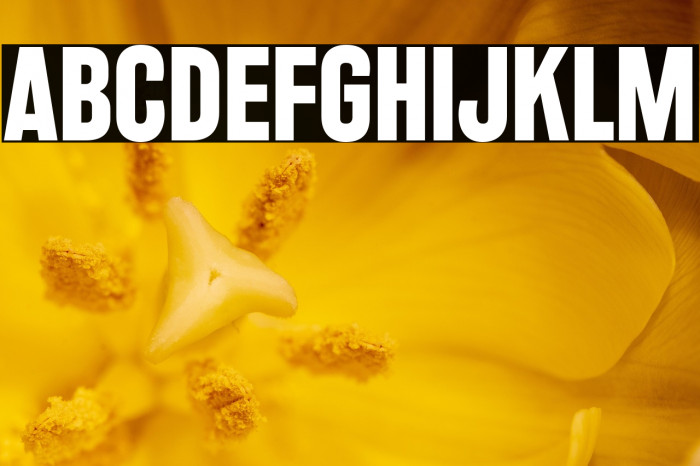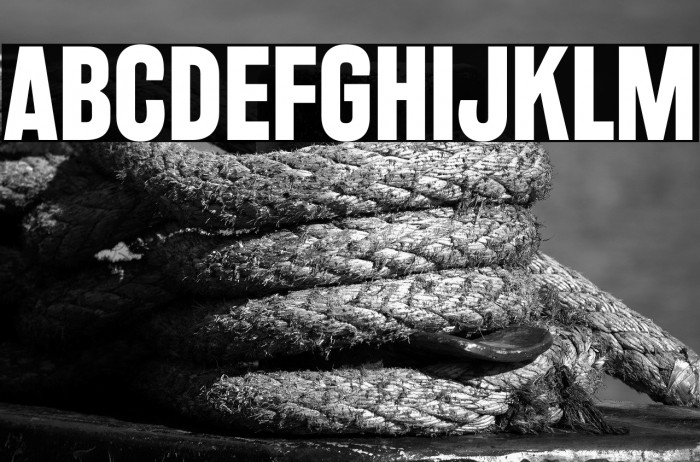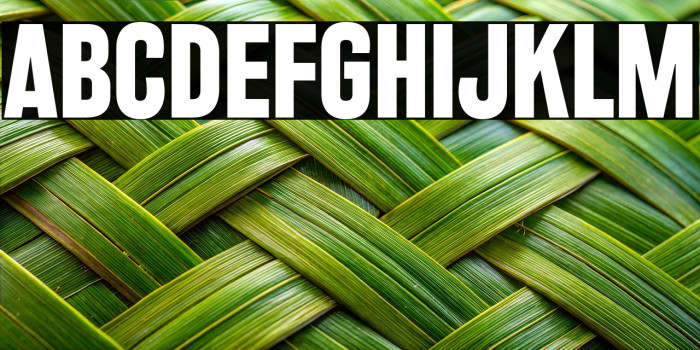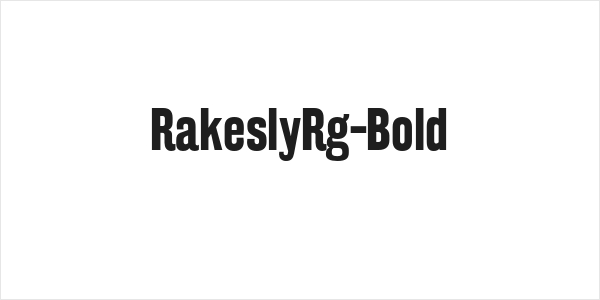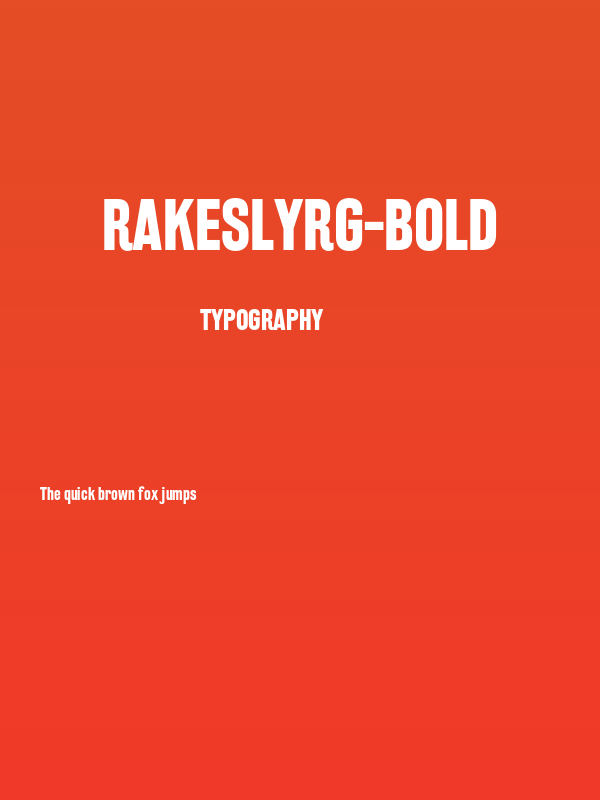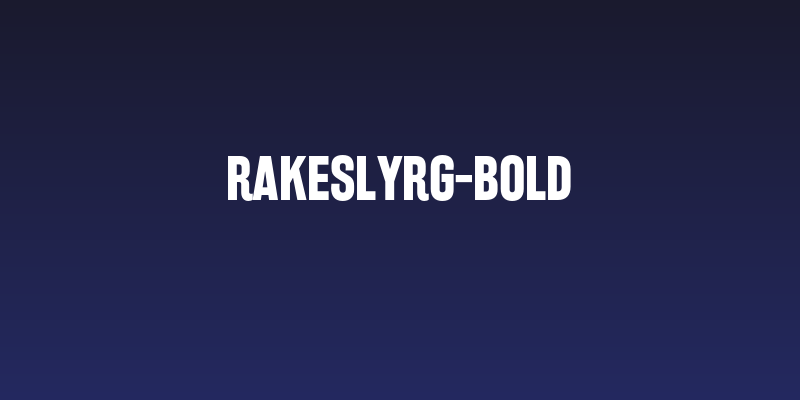
RakeslyRg-Bold Font
RakeslyRg-Bold Description
This bold, sans-serif typeface features strong, thick strokes that convey a sense of power and modernity. The uppercase and lowercase letters are well-proportioned, with a consistent stroke width that enhances readability. The numerals are clear and distinct, making them suitable for various applications. Special characters are designed with the same boldness, ensuring they stand out. The overall design is clean and straightforward, making it versatile for both digital and print media.
| Proposed Projects | Ideal for headlines, posters, branding, and advertising where a strong visual impact is needed. |